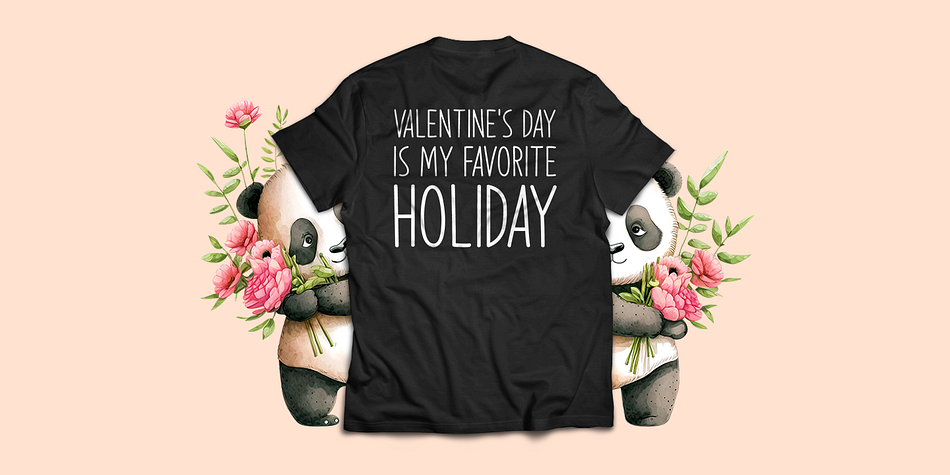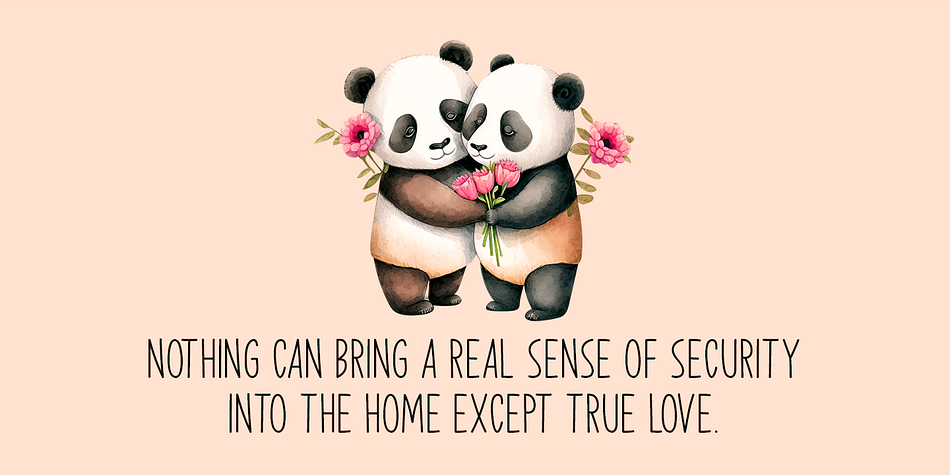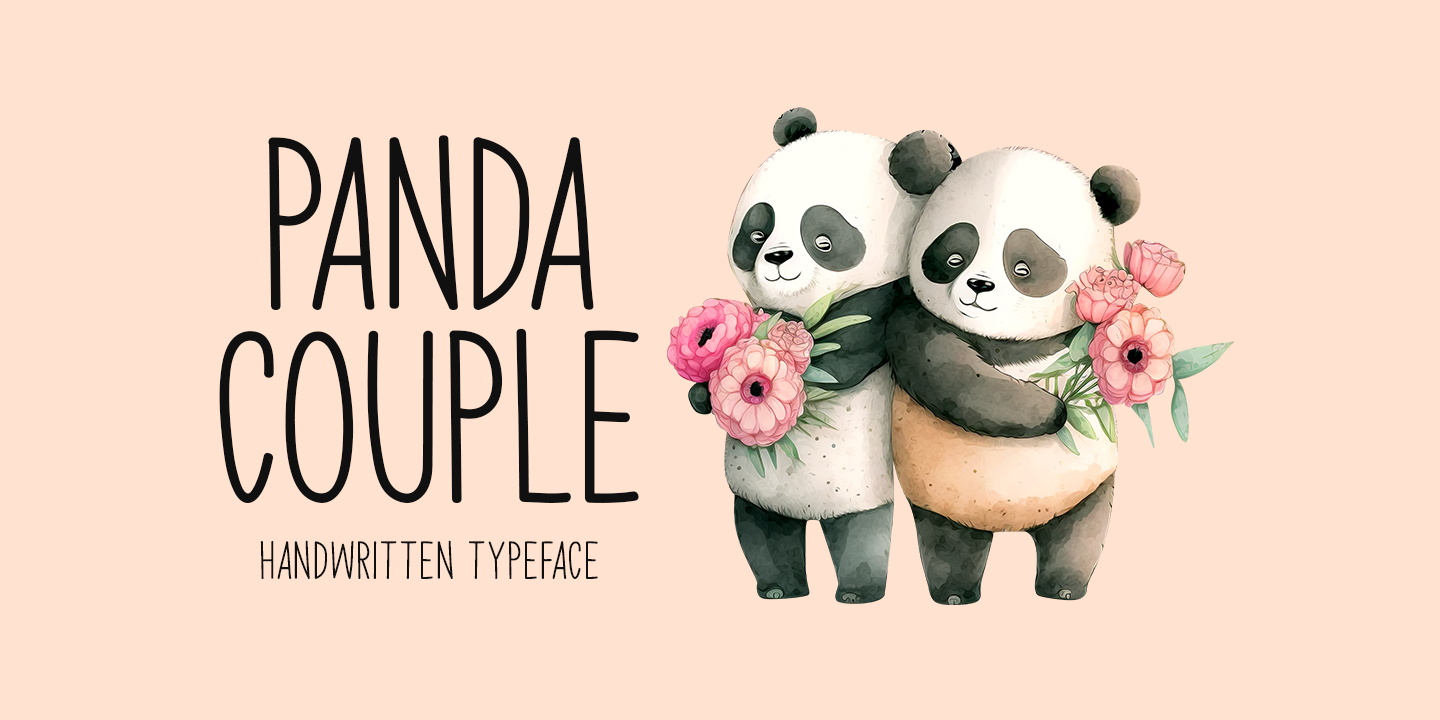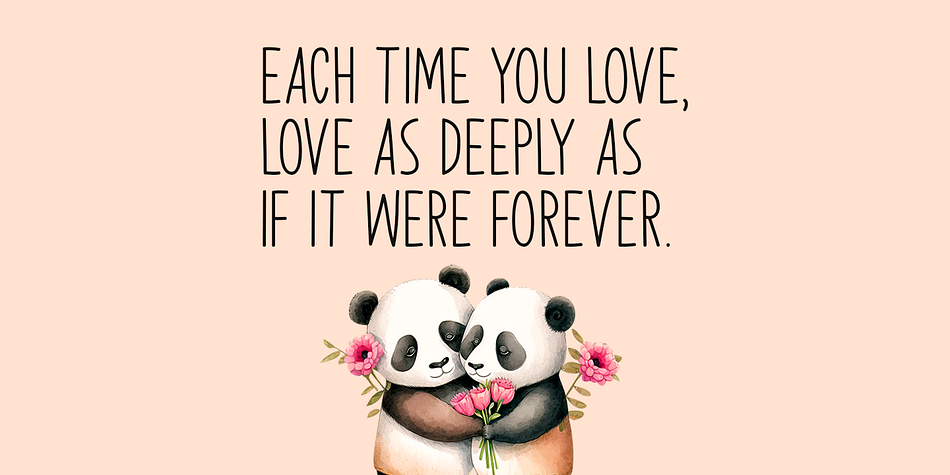
PANDA COUPLE
Designed by Md. Shohail Bhuiyan, Panda Couple is a display sans and hand display font family published by Seemly Fonts.
Panda Couple is a visually appealing and straightforward handwritten font. Add it to your original ideas to see how it helps them stand out since it can be readily suited to a huge range of projects.